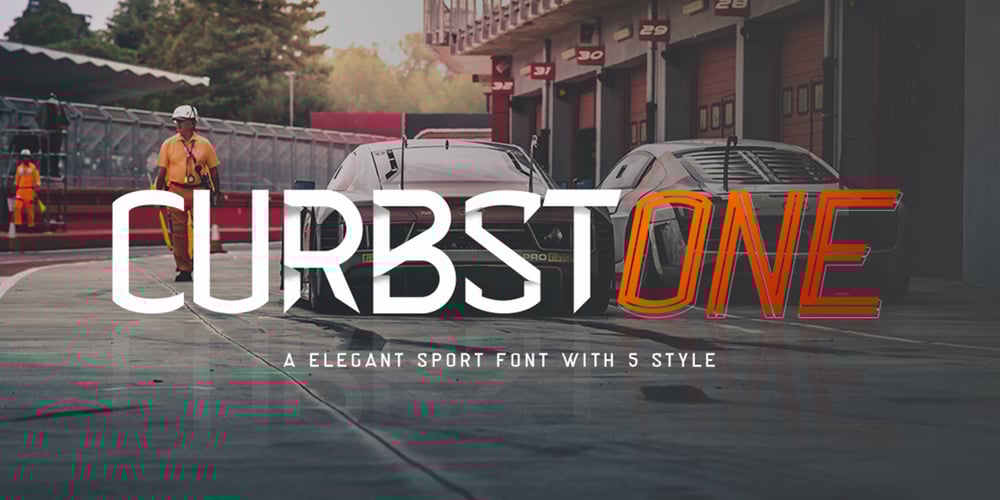
Curbstone Font Family was designed by Muhammad Afif Ersya and published by Mevstory Studio. Curbstone contains 6 styles and family package options. We introduced the Crubstone font which was released and received great exposure from users and font fans all over the world. Massive development of experiments on alternative letters. We redesigned each shape to make it more functional and comfortable as the text size increased. Apart from rejuvenating the shape of the letters, we also applied italic styles to provide a wide choice of styles.